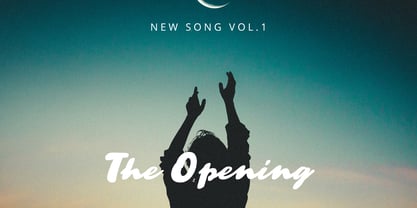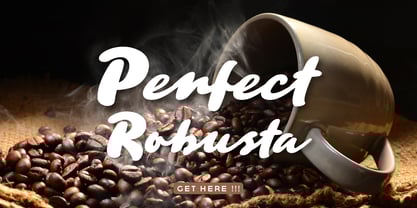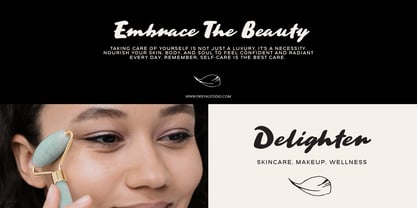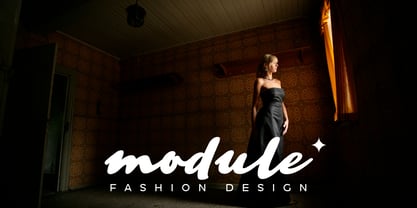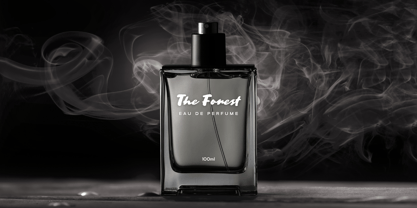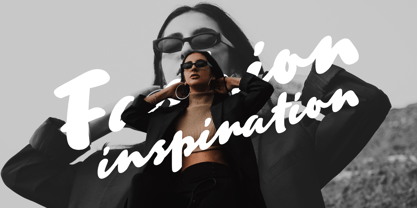
Signature Philosophy
by Fikryal
The Signature Philosophy Font Family was designed by Muhammad Fikry and published by Fikryal. Signature Philosophy contains 1 styles. More about this family
Signature Philosophy – Bold Signature Font is a bold and confident script font with the elegance of a handcrafted signature style. Designed to make a strong impression, this font brings a blend of sophistication and personality to your creative projects.
With a collection of alternates and ligatures, Signature Philosophy offers versatile letter combinations that feel organic and refined — perfect for logos, branding projects, product packaging, wedding invitations, photography watermarks, magazines, and handwritten quotes.
Its natural flow and bold weight make it stand out effortlessly while remaining stylish and readable. Whether you’re designing for luxury, fashion, or lifestyle brands, Signature Philosophy adds a premium feel to your work.
Features:
• Uppercase & lowercase characters
• Numbers & punctuation
• Alternates & ligatures
• Multilingual support